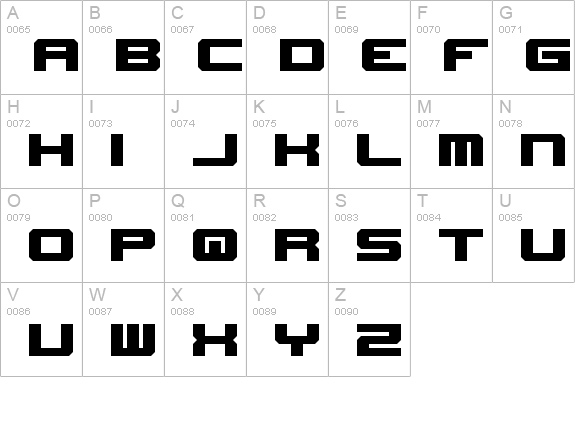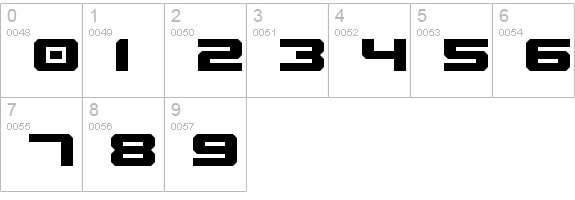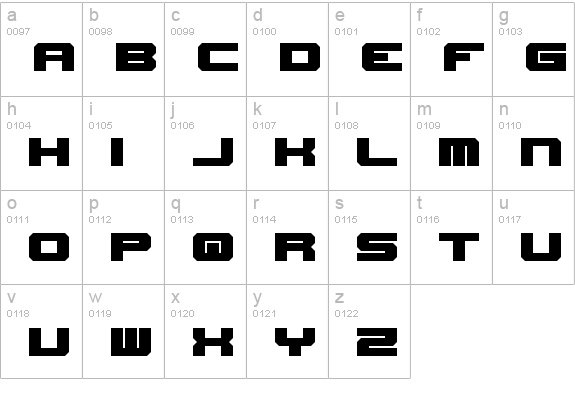
New Horizons Nominal Font Details
Introducing New Horizons Nominal font, a sleek and sophisticated typeface designed to elevate your projects to new heights. With its clean lines and modern aesthetic, this font is perfect for a variety of design applications, from branding to editorial design. The New Horizons Nominal font exudes a sense of elegance and professionalism, making it a versatile choice for any creative project. What sets this font apart is its versatility and readability, making it suitable for both print and digital applications. Whether you're designing a sleek logo or crafting an eye-catching poster, the New Horizons Nominal font will help you make a lasting impression. Best of all, this font is free to download at FontsMarket.com, making it accessible to all designers looking to add a touch of sophistication to their work. Don't miss out on the opportunity to enhance your designs with the New Horizons Nominal font - download it today and let your creativity soar!